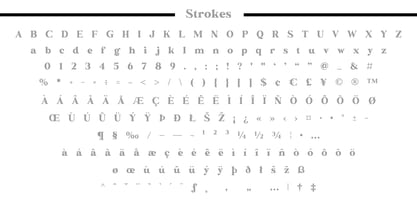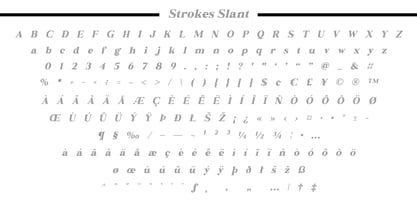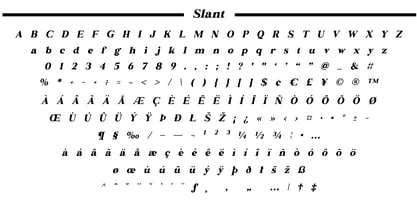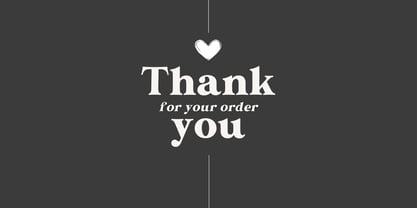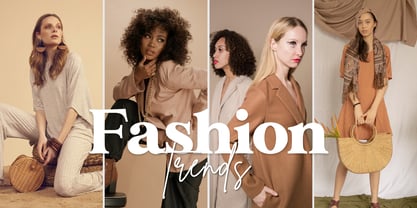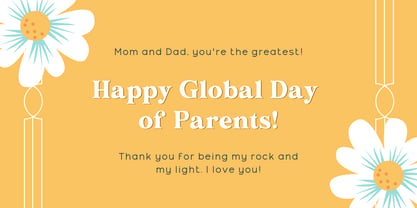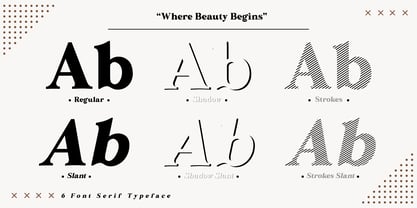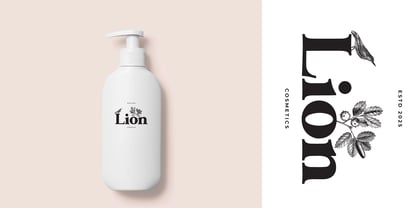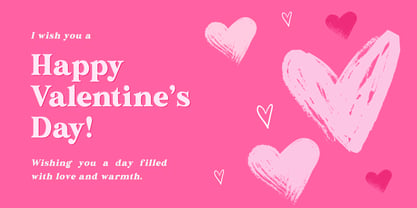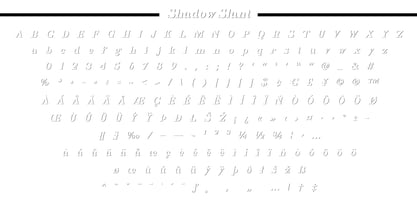
Fox Bravion
por Fox7
La familia tipográfica Fox Bravion fue diseñada por Rattana Rattanawan y publicada por Fox7. Fox Bravion contiene 6 estilos y opciones de paquete familiar. Más información sobre esta familia
Fox Bravion is an elegant serif display typeface designed to bring timeless beauty and refined character to your creative projects. Inspired by classic typography with a modern artistic touch, Fox Bravion blends strong serif forms with graceful curves, making it perfect for luxury branding and sophisticated design work. Fox Bravion works beautifully for logos, fashion branding, editorial layouts, wedding designs, invitations, posters, packaging, and social media visuals. Whether you want something bold, stylish, or subtly decorative, this font offers endless creative possibilities. ✦ Font Styles Included Regular Shadow Strokes Slant Shadow Slant Strokes Slant ✦ Perfect For Luxury logos & branding Fashion & beauty designs Editorial & magazine layouts Wedding invitations & stationery Posters, packaging & labels Social media & digital graphics
Diseñadores: Rattana Rattanawan
Fundición: Fox7